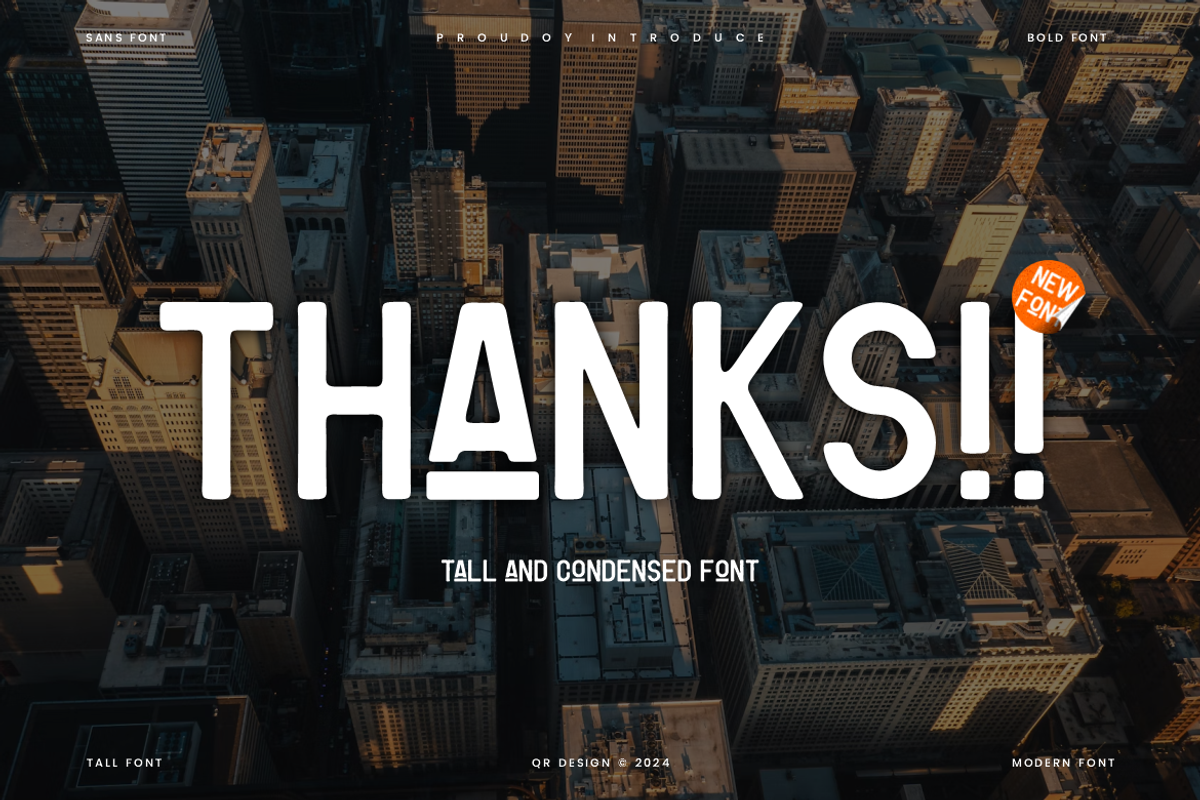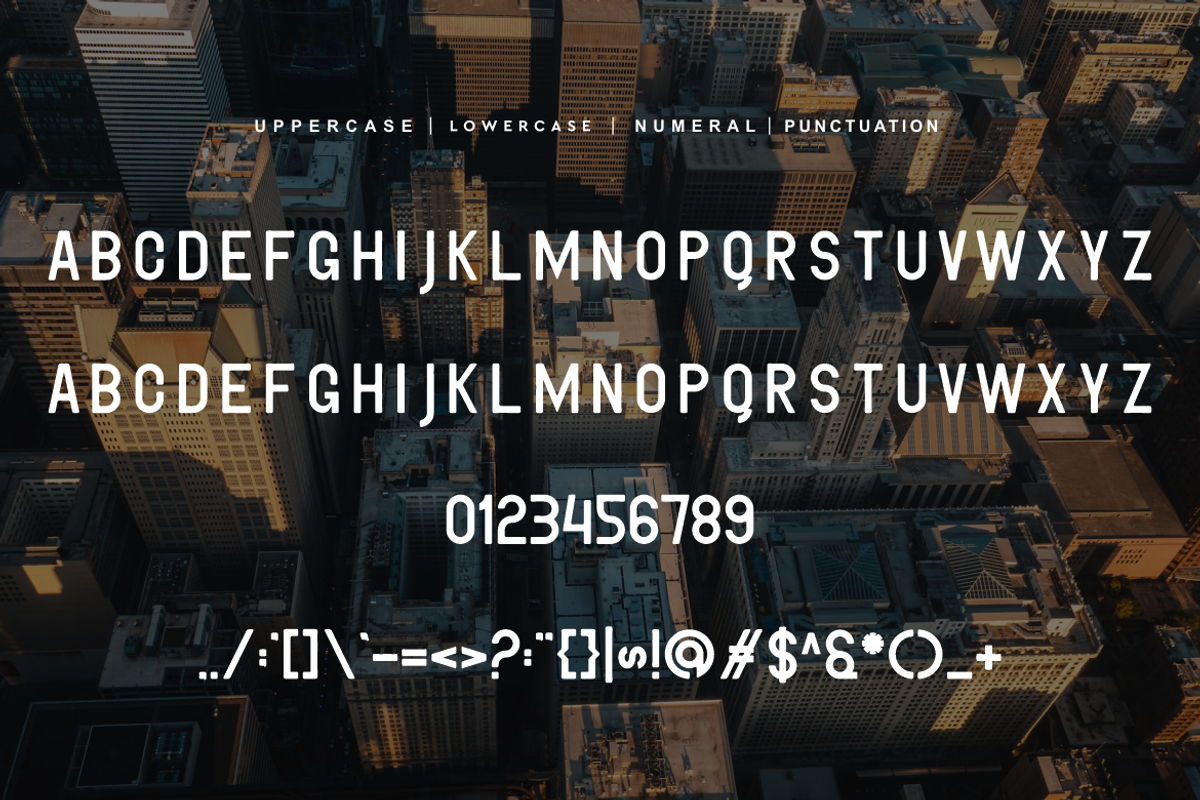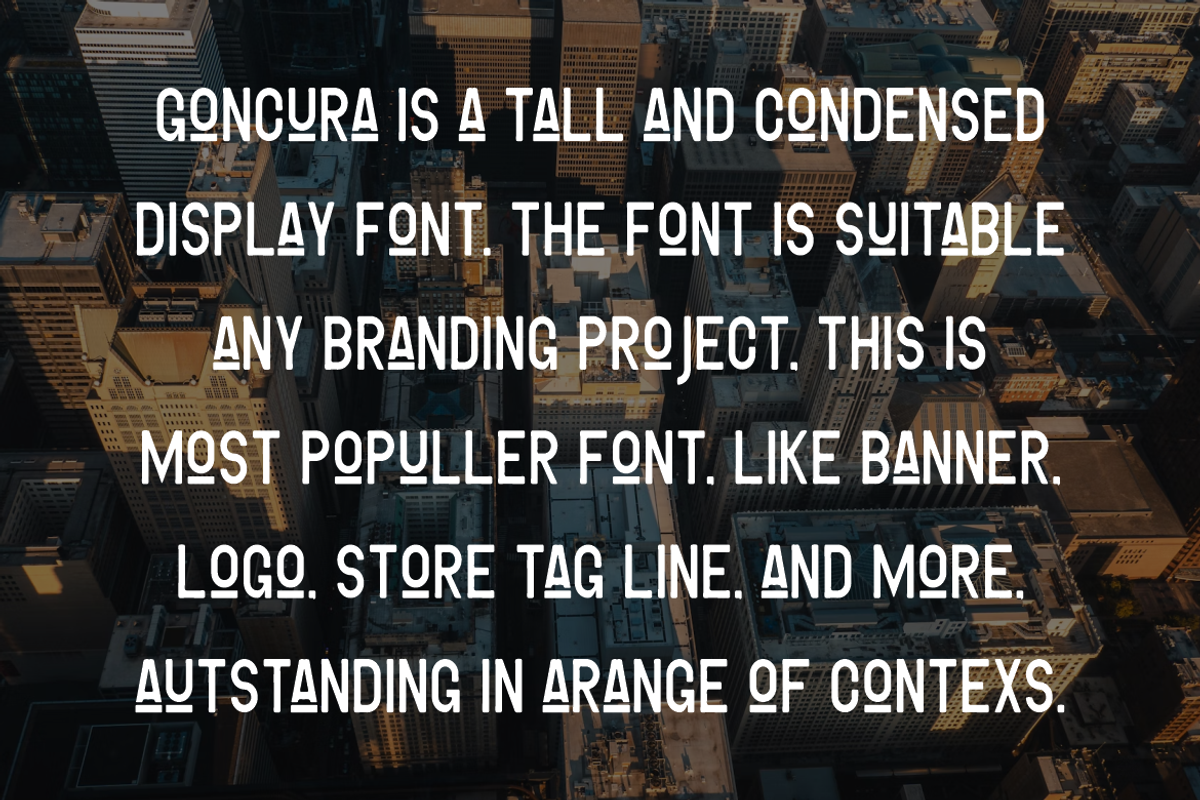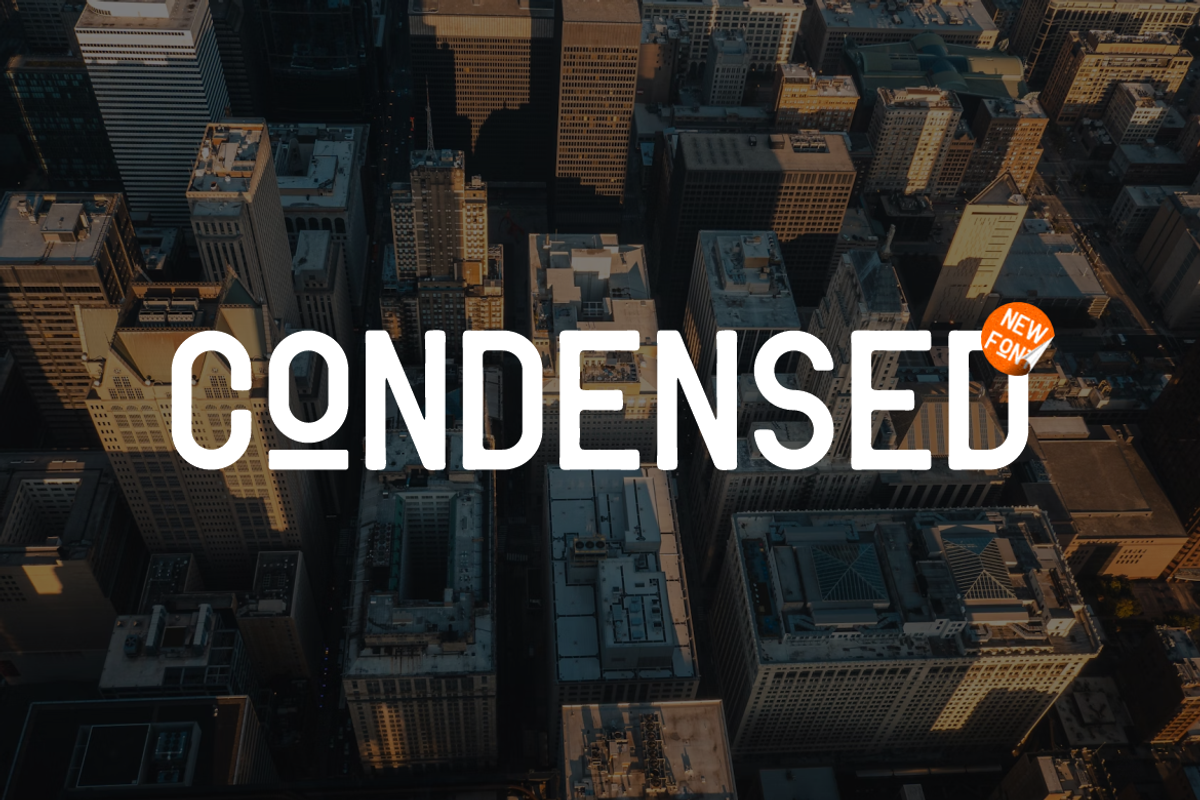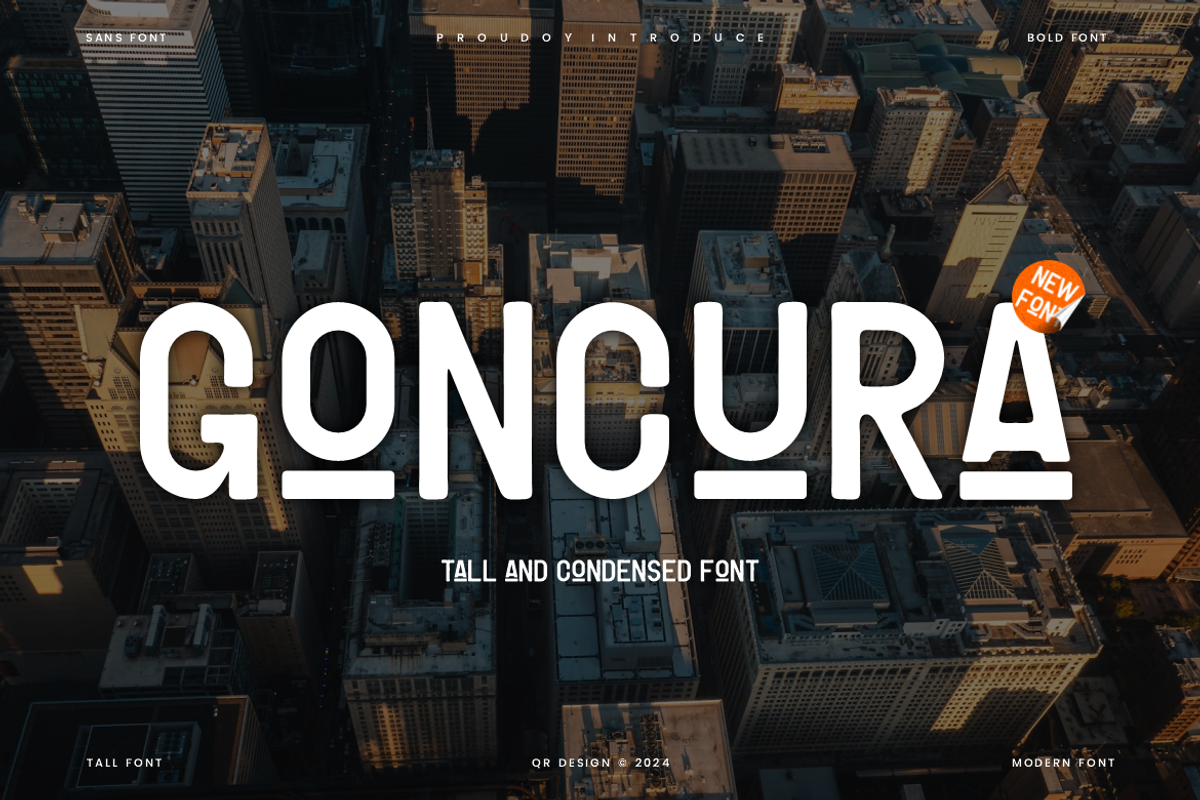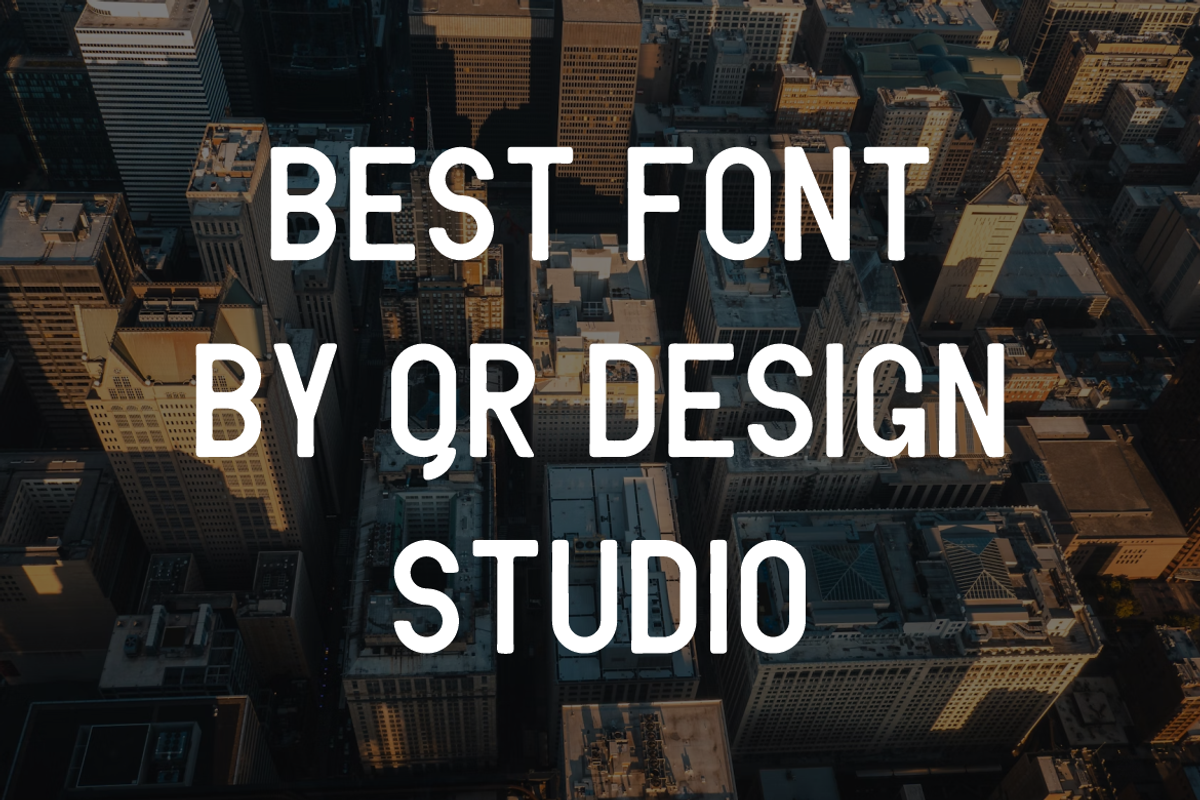
Goncura - Condensed Font
Goncura - Tall Font is a bold and authentic display font. The font is suitable for any branding project like poster, logo, sport, and many more. Outstanding in a wide range of contexts.